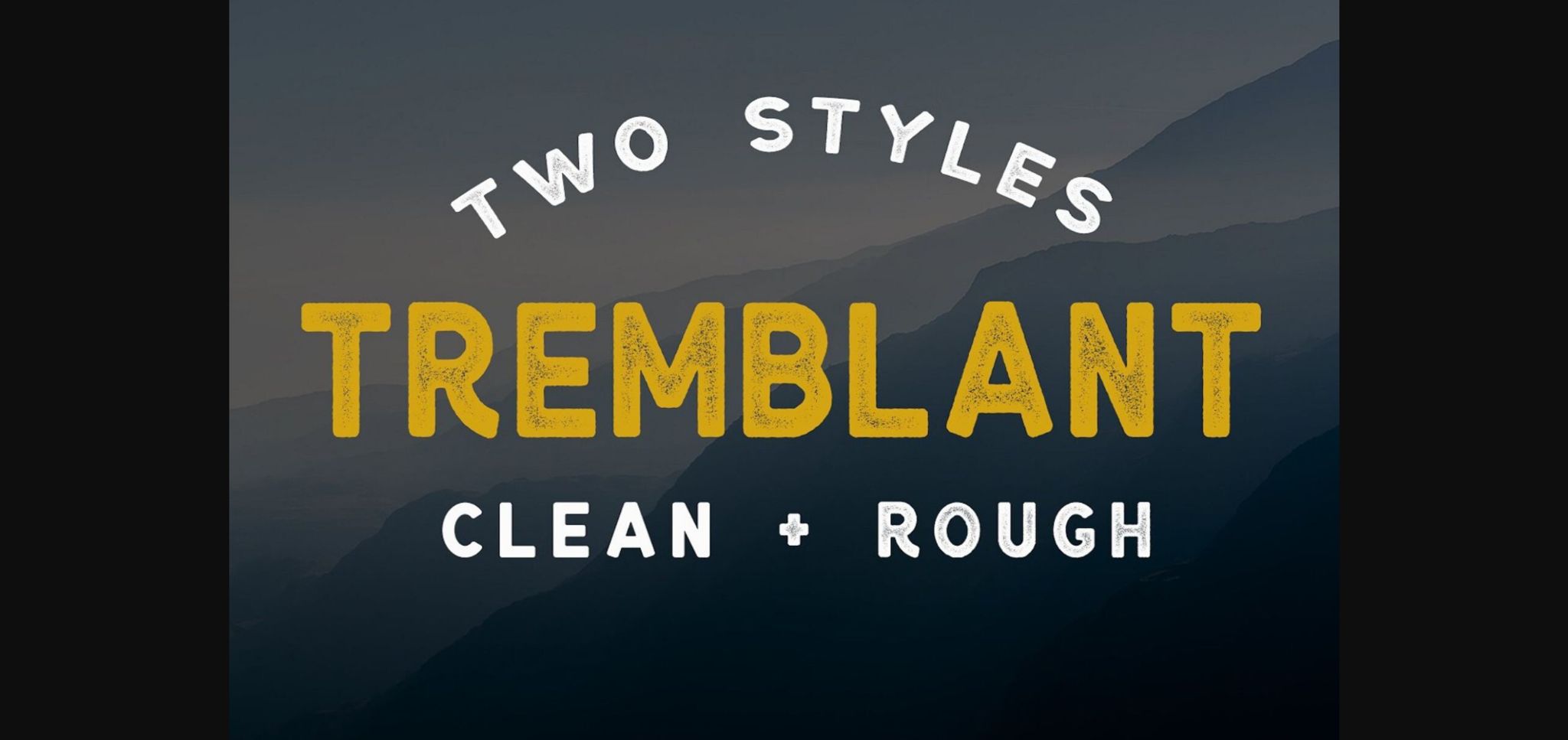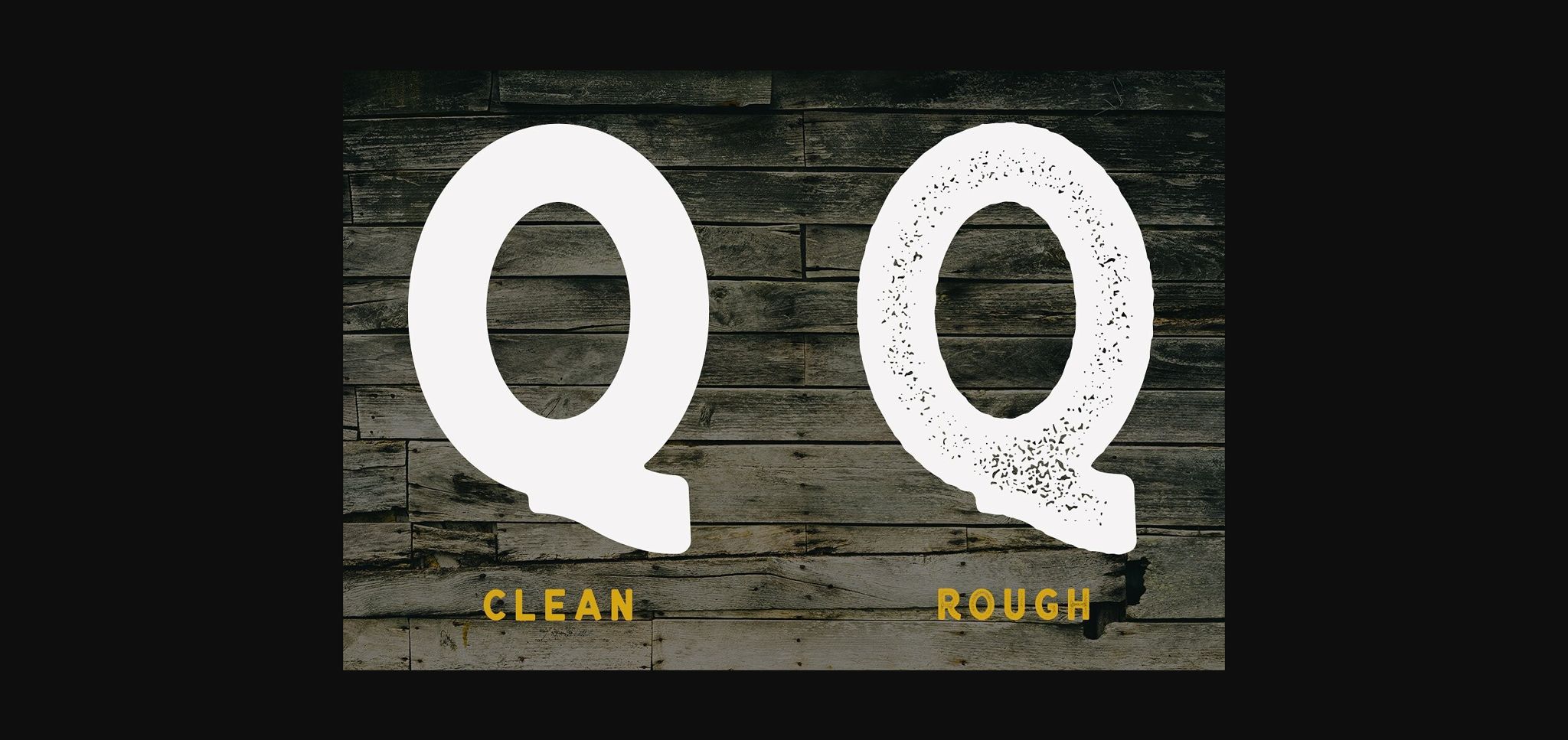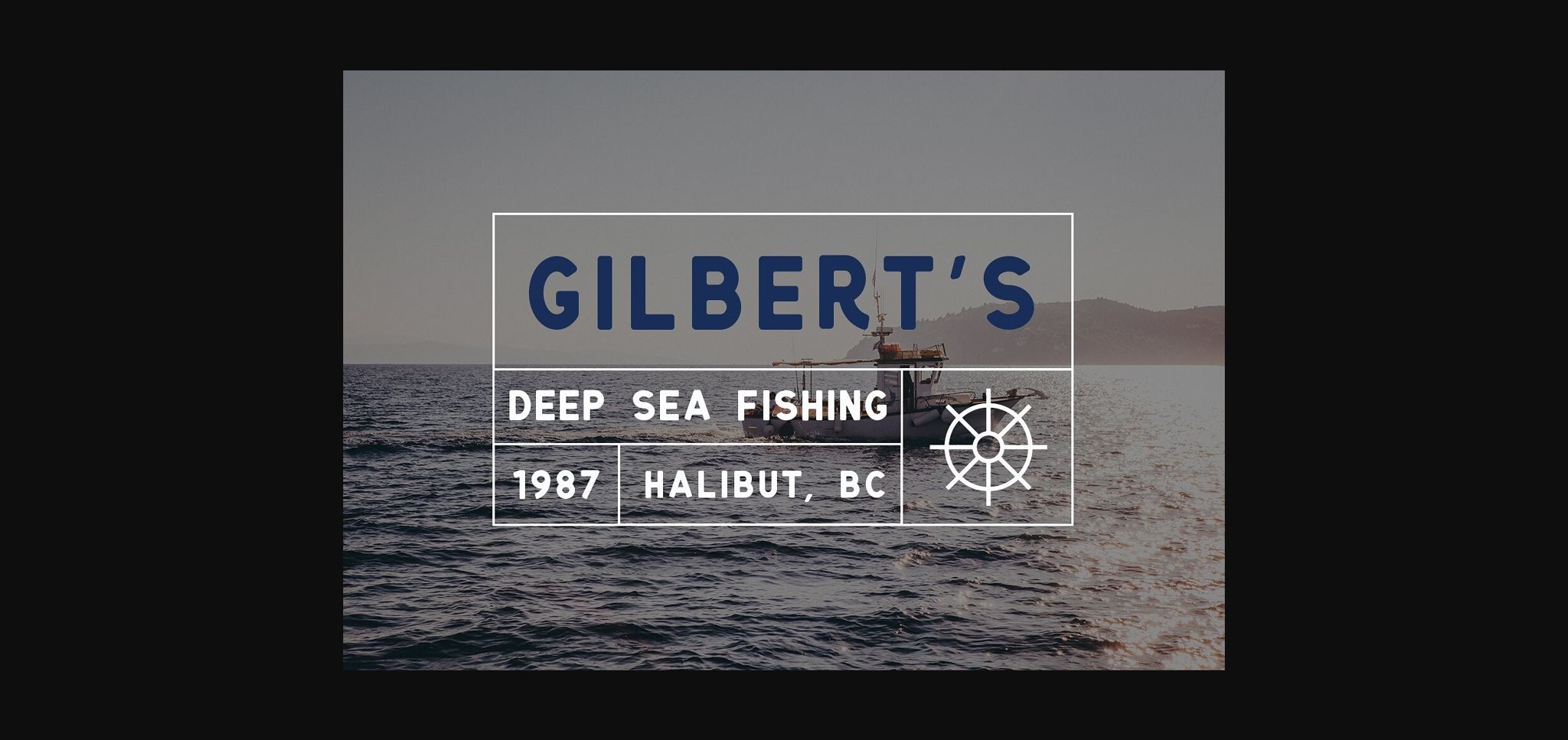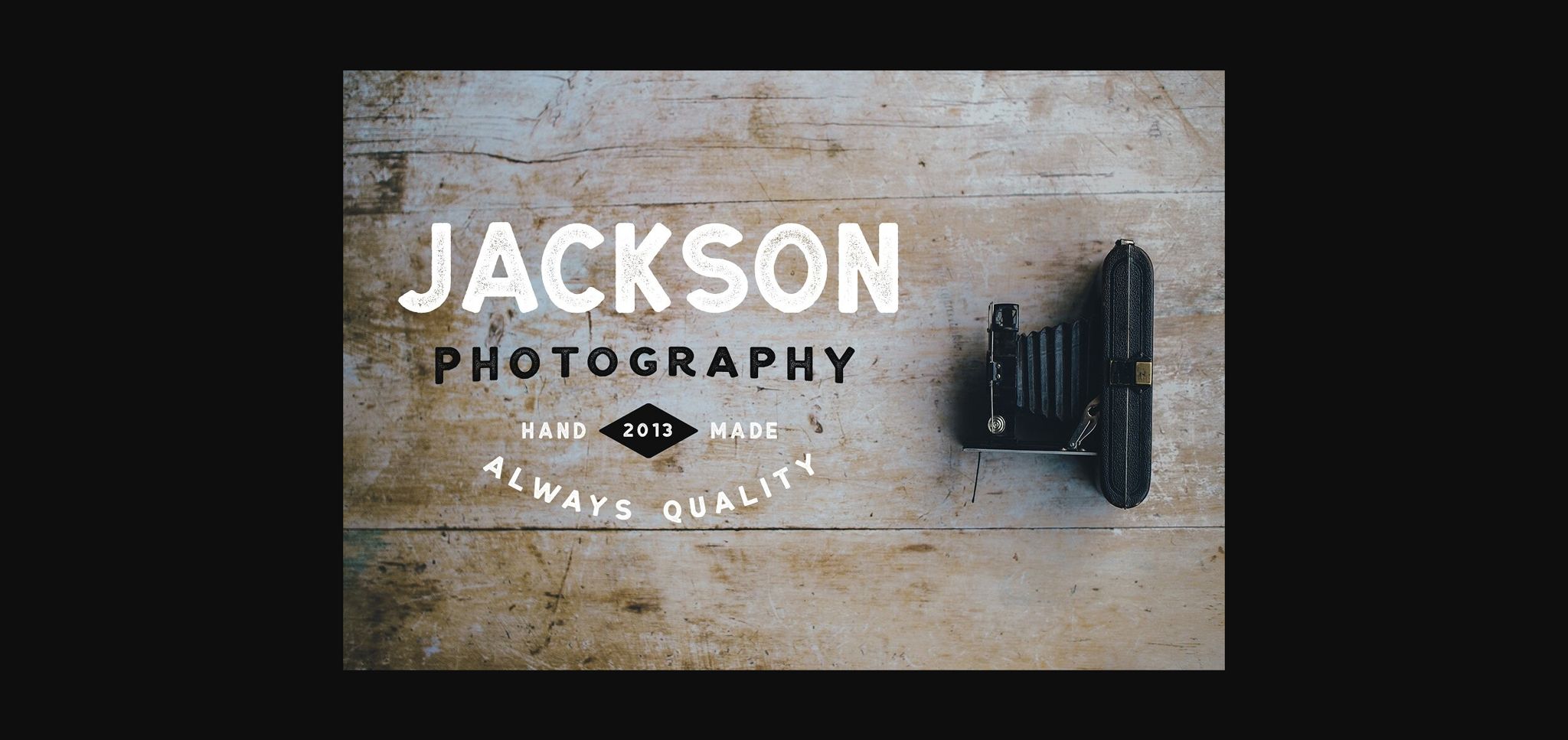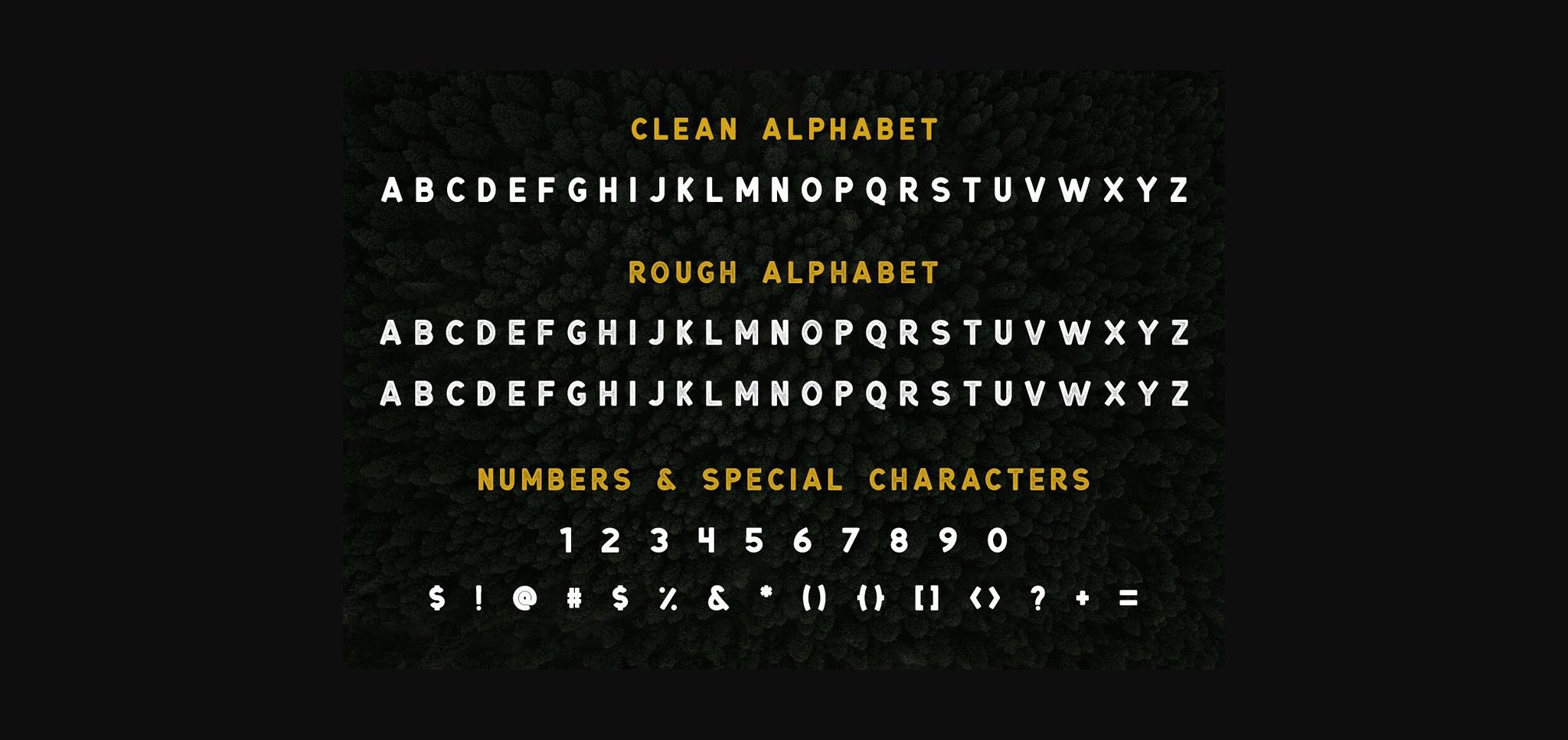
About Tremblant Font
Tremblant is a versatile font that is perfect for a variety of projects like badges, branding, labels, apparel, headlines, signage & more. Tremblant works equally well in modern design as well as vintage & adventure inspired design with the two versions.